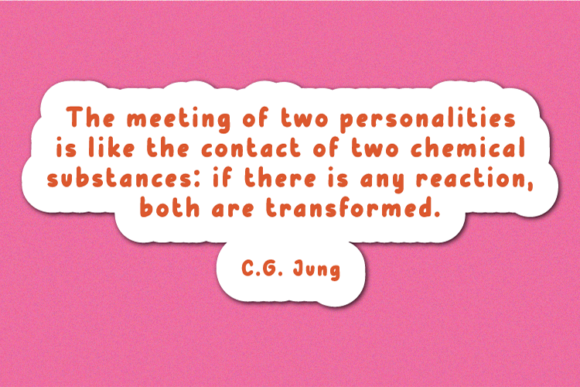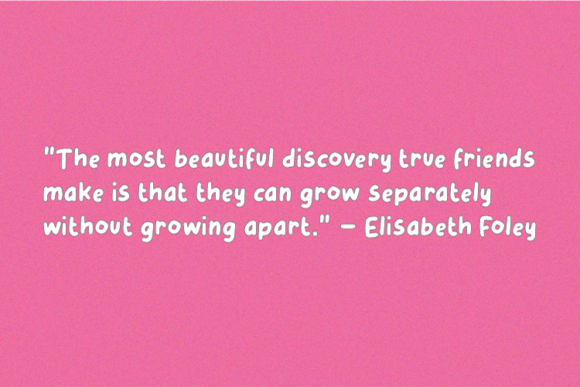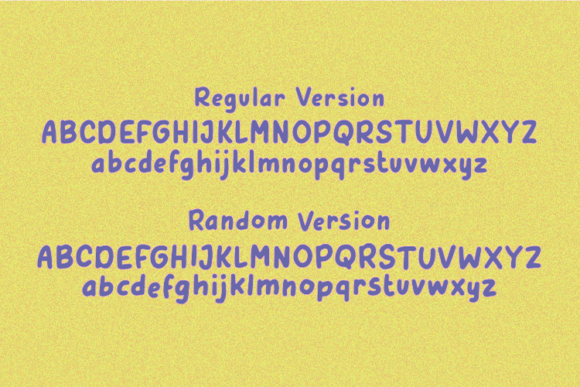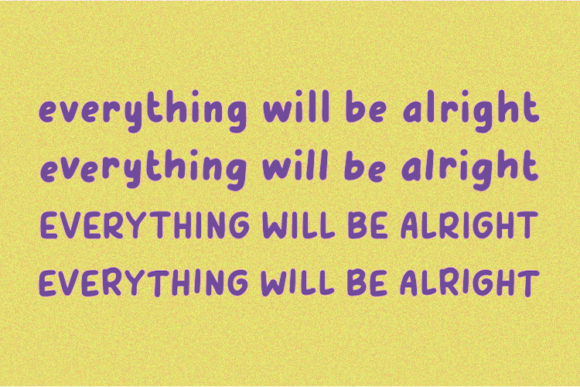
Summer Holiday Font
About Summer Holiday Font
Summer Holiday is a cute and casual handwritten font. The curves in each arrangement make it look unique and natural. Use this font for your designs and explore its endless possibilities.